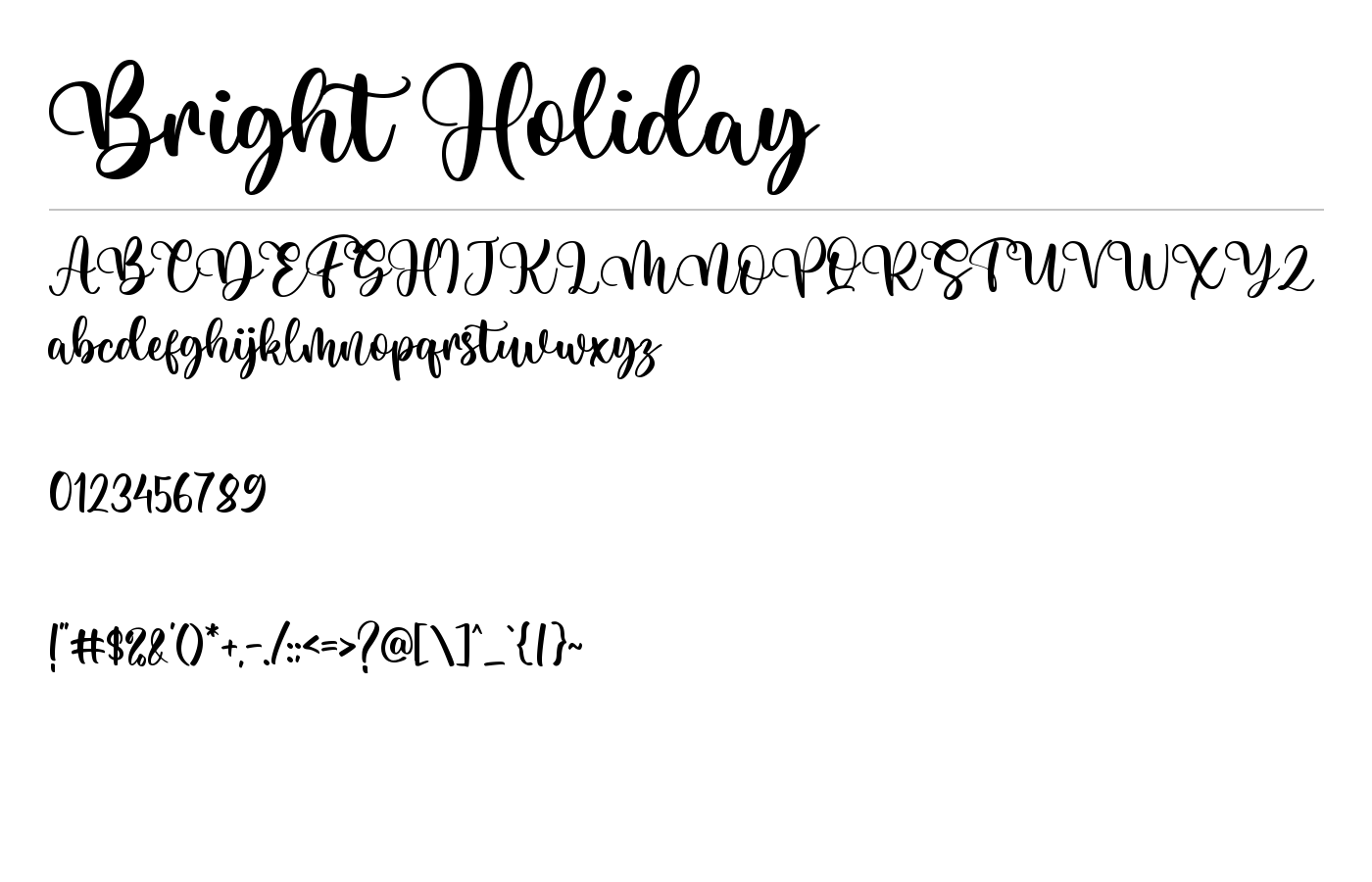
Bright Holiday is a lively script font with a friendly, handwritten feel, featuring smooth, flowing strokes and a playful yet elegant style. Its medium weight and well-balanced letterforms make it perfect for festive branding, invitations, and cheerful headlines where warmth and personality are key. This font’s charming curves and clear readability bring a joyful, personal touch to any creative project.
Bright Holiday Font
About Bright Holiday Font